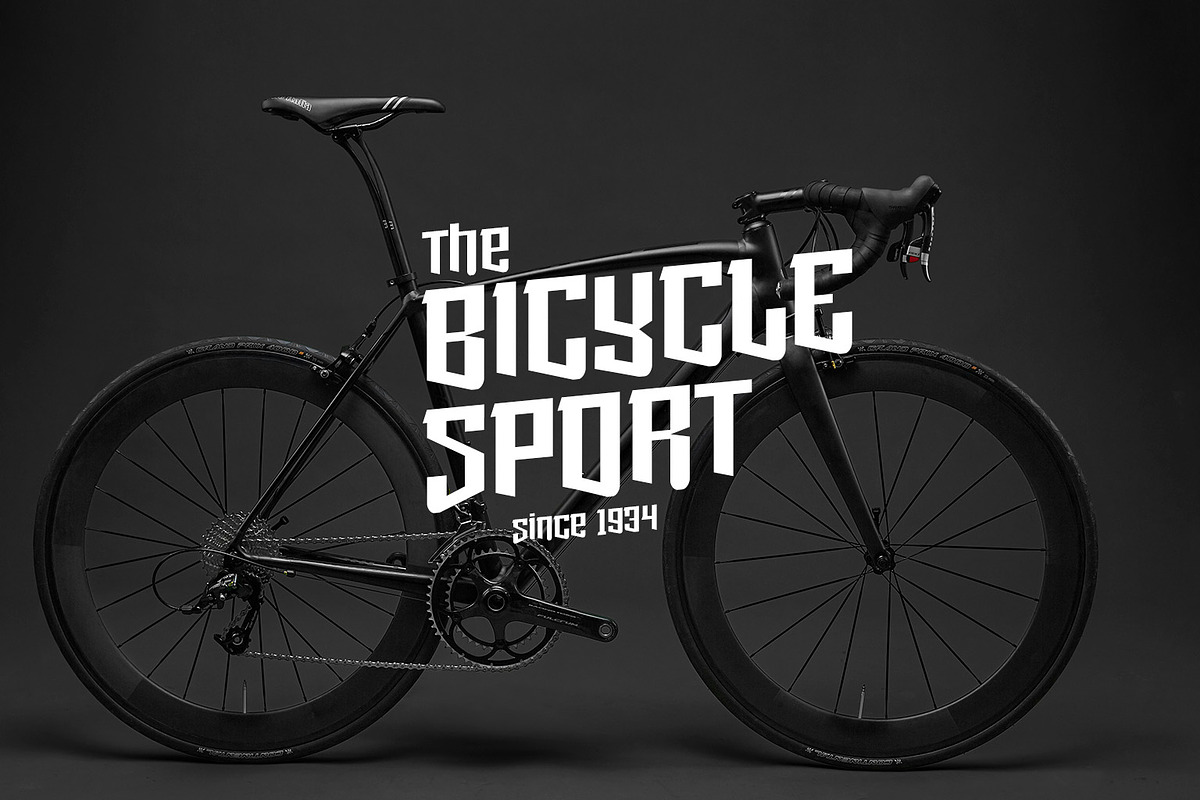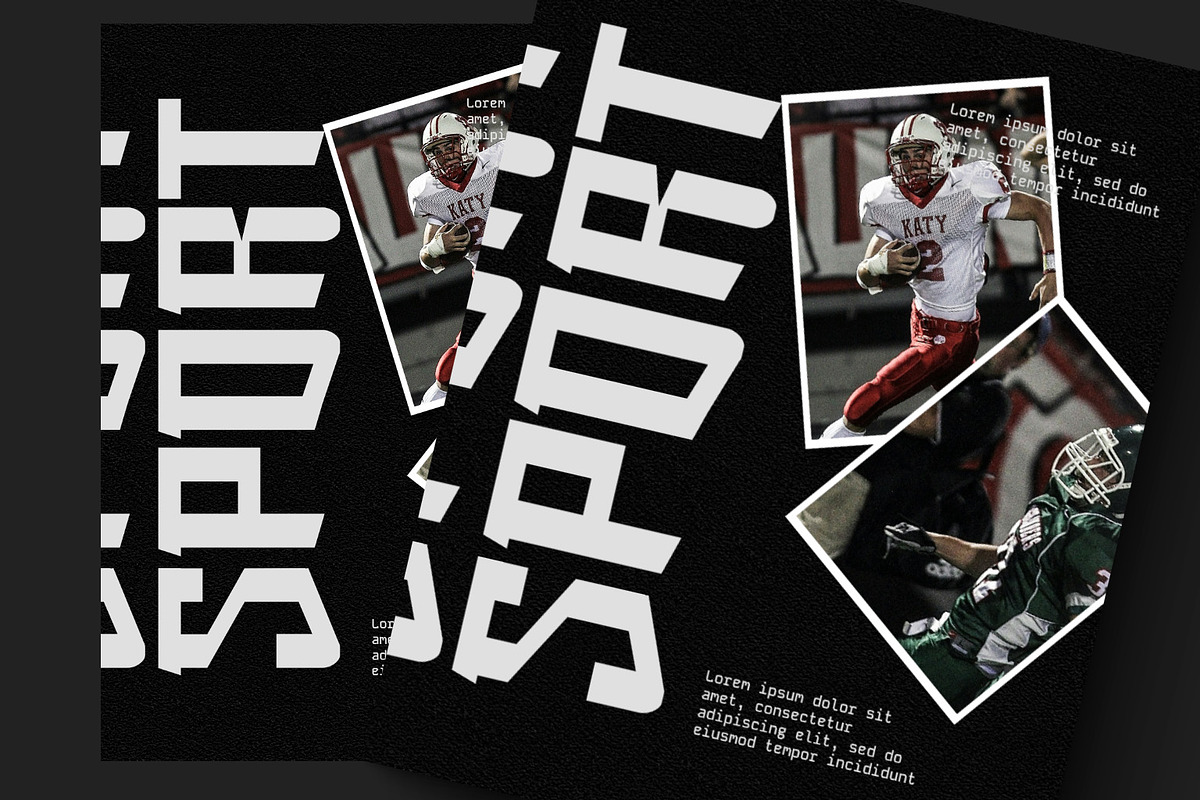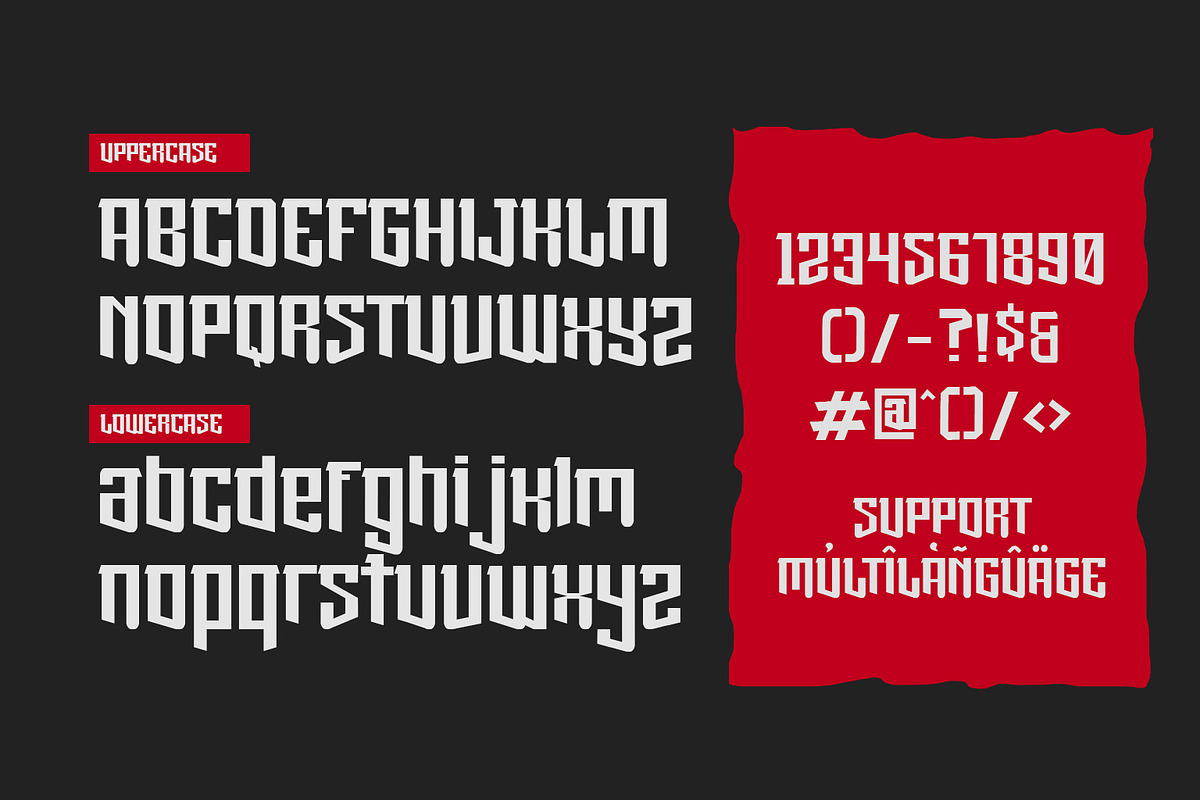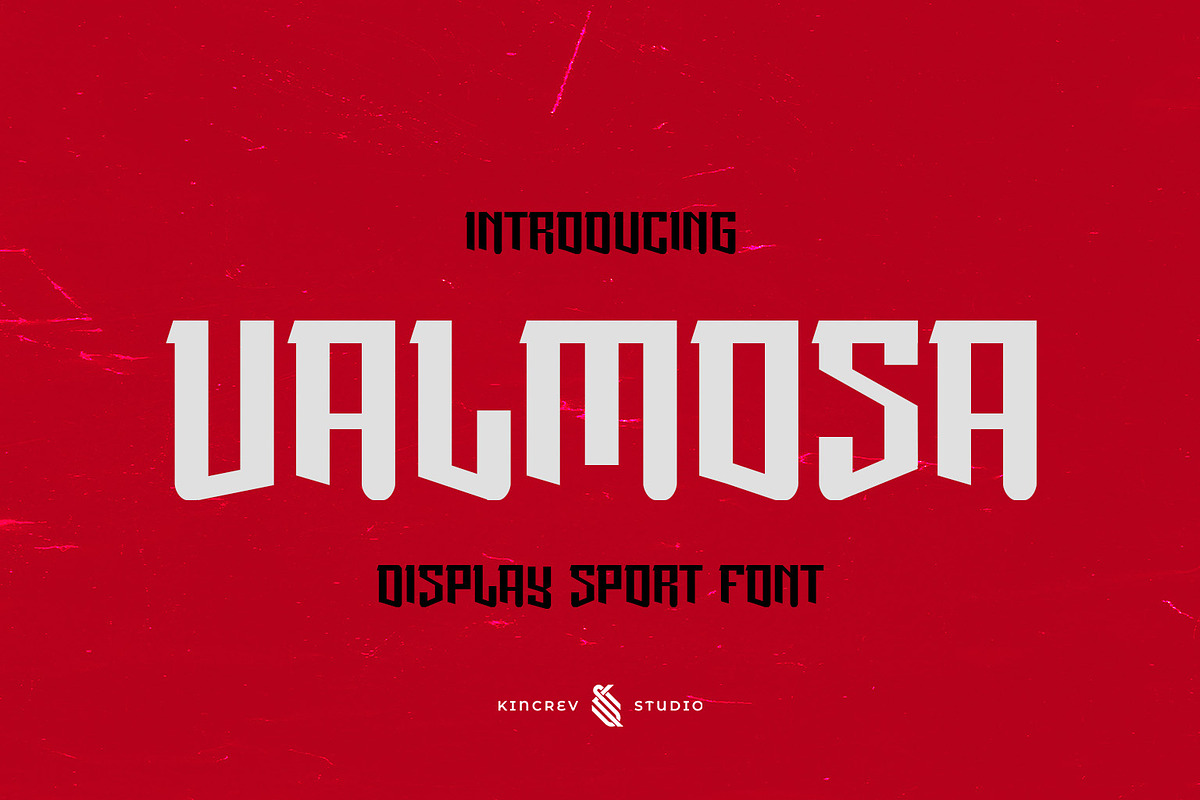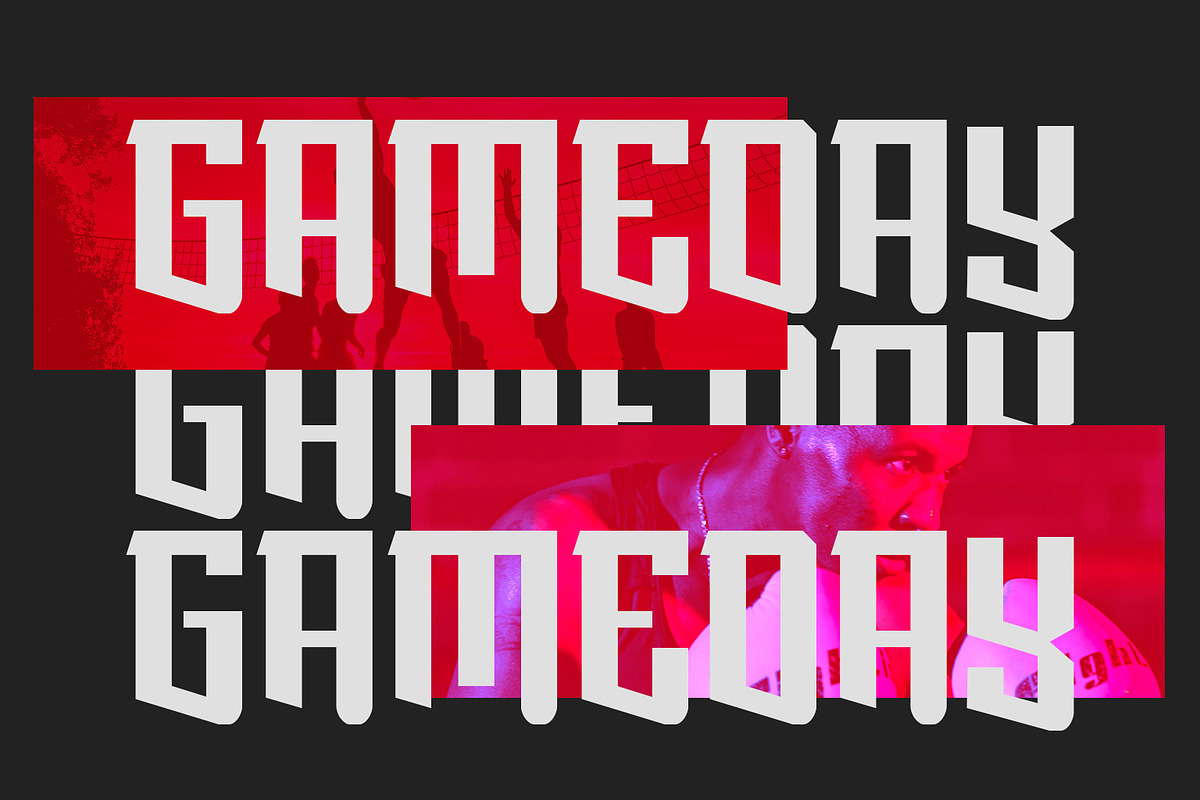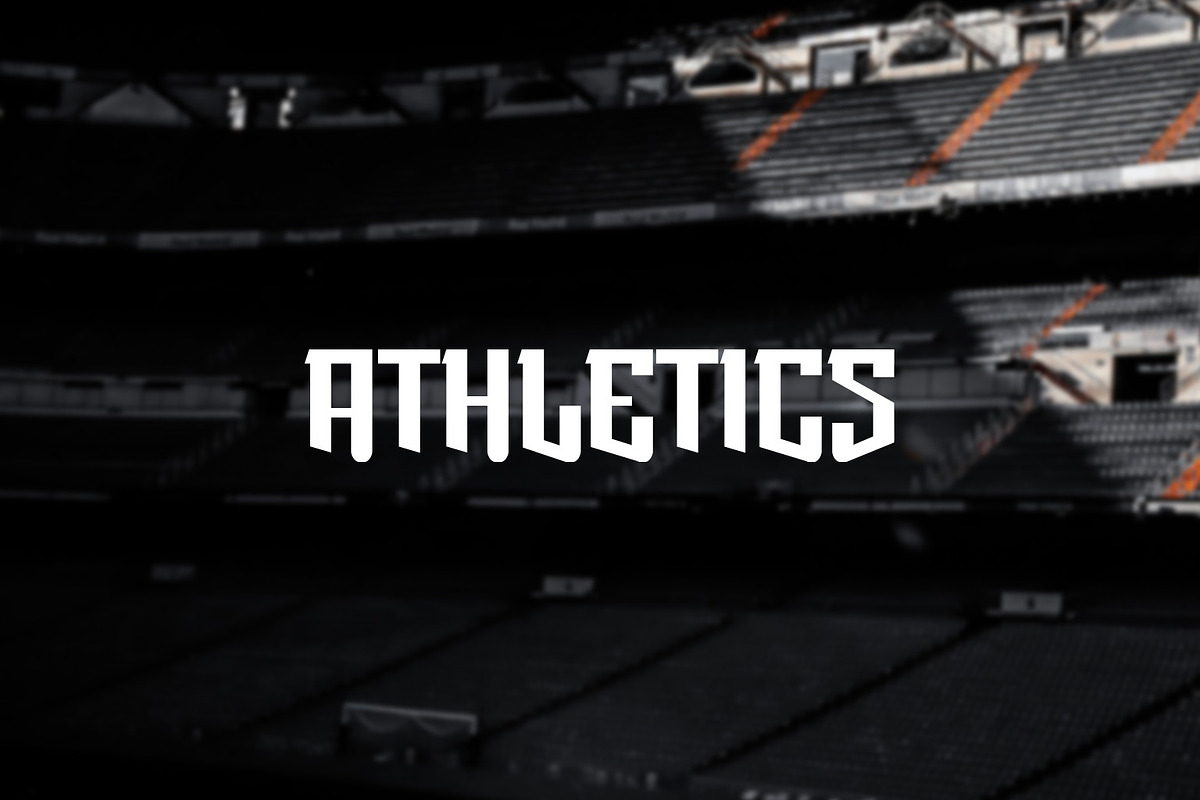
VALMOSA - Display Sport Font
Hello, Everyone! Ready to make your branding design outstanding? If you need to create a stylist, bold, and modern sporty look for your business, work on a poster for an event, or whatever your projects are, VALMOSA - Sport Display Font is the perfect one for you.
VALMOSA, a display font is font for you to get your designs with stylist, bold, and modern sporty look. It is made in uppercase & lowercase style which are simple and easy on the eyes and nice to look at, and easy to read. This font is designed to bring your brandings to life and add a touch of sporty modern, bold, fun and style.
- Multilanguage Support
VALMOSA fits for any design projects, such as posters, banners, logos, book covers, album covers, quotes, invitations, greeting cards, name cards, headings, printed products, merchandise, social media, etc. Find out more ways to use this font by taking a look at the font preview.